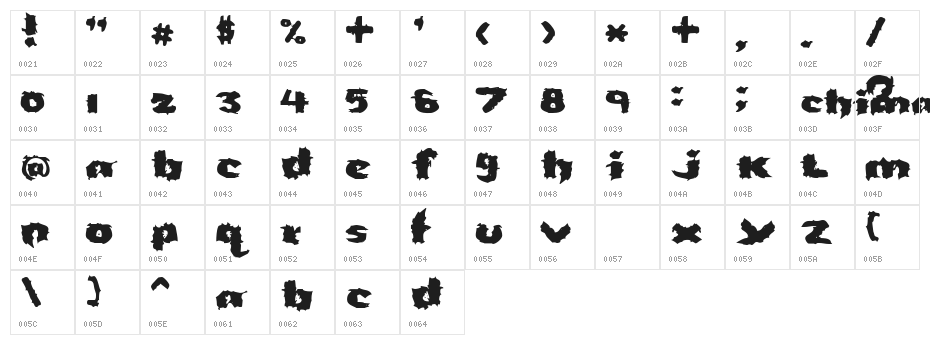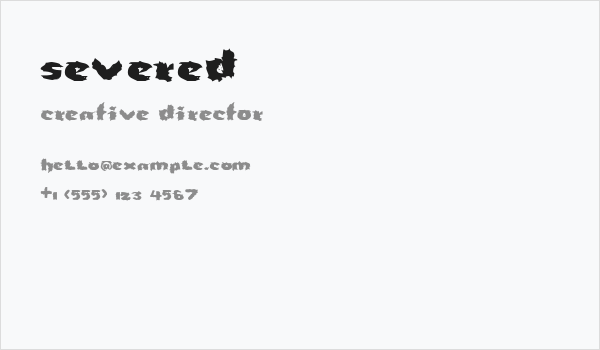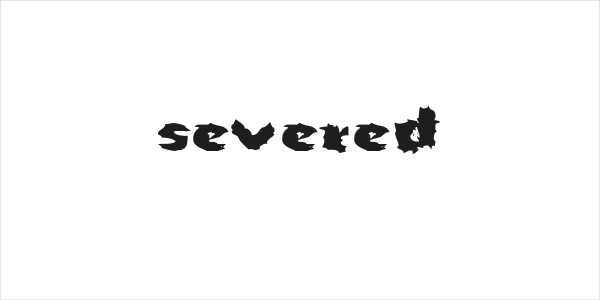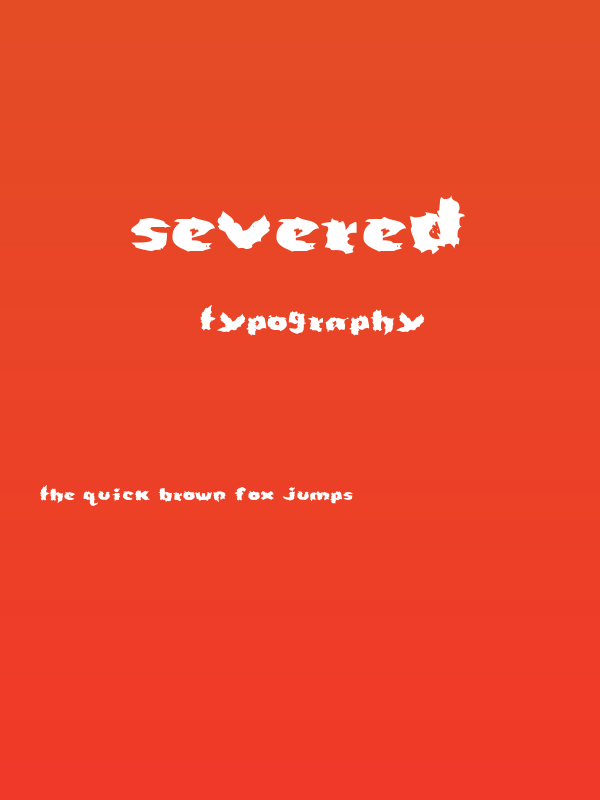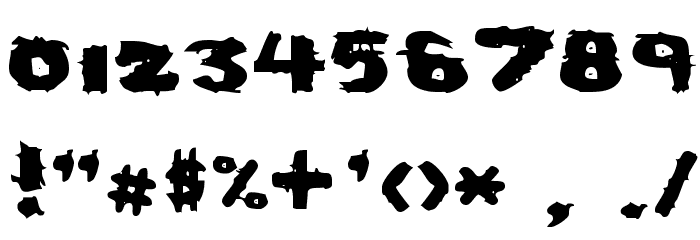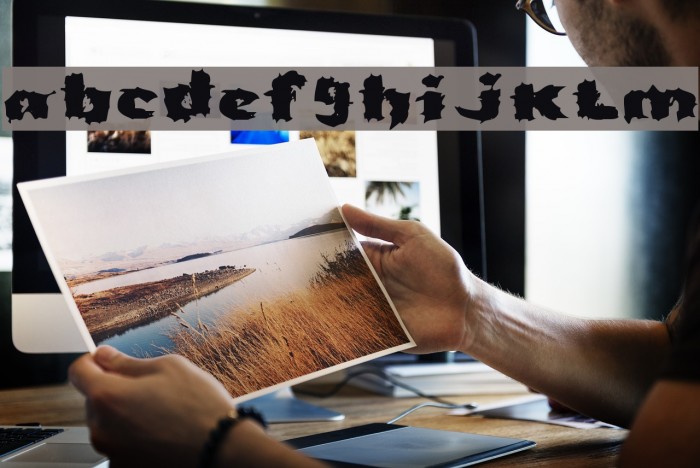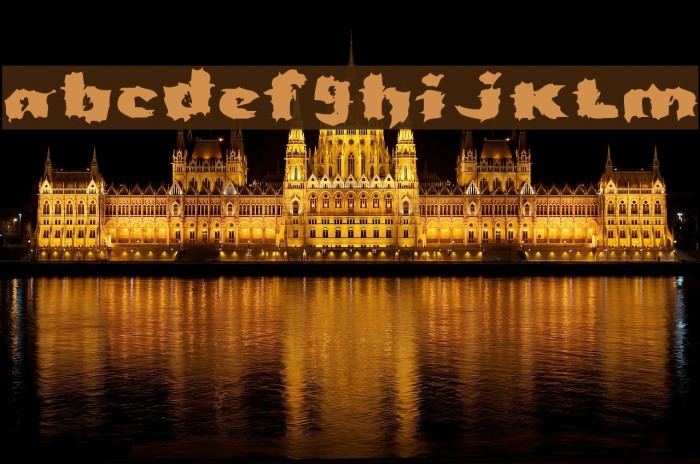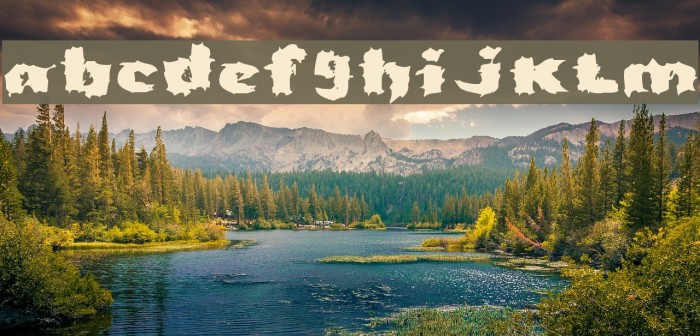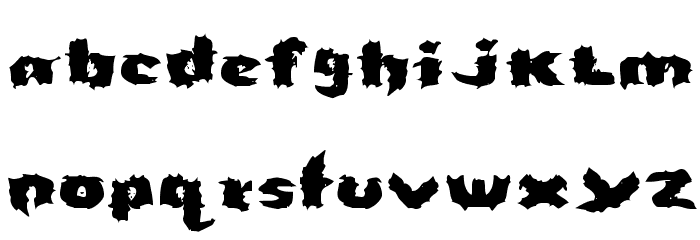
Severed Font
Severed Description
This font features a highly decorative and edgy design, characterized by its jagged and irregular edges that give it a distressed and grungy appearance. The letters appear as if they have been torn or eroded, creating a sense of chaos and intensity. Each character maintains a consistent height, but the varying thickness and sharp angles contribute to its unique and bold aesthetic. The font's style is reminiscent of horror or thriller themes, making it ideal for projects that require a dramatic and eye-catching typeface. Despite its rough appearance, the font remains legible, with distinct shapes for each letter and number.
| Proposed Projects | Suitable for horror movie posters, Halloween event flyers, edgy album covers, and video game titles. |